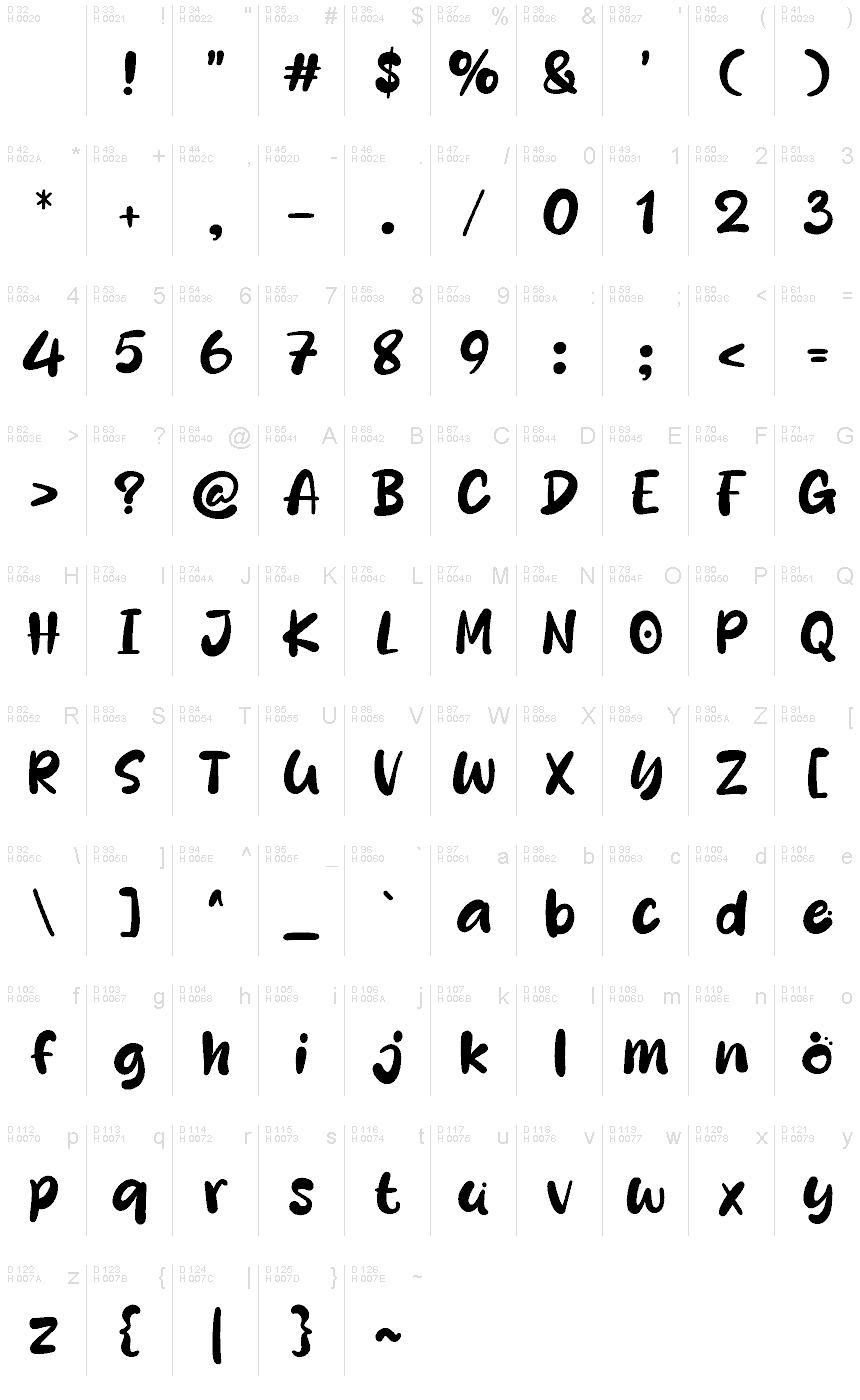
Ponari
Ponari font by Khurasan is a free display font with exceedingly smooth, rounded, and modern shapes. It combines cartoonish letter designs that form a friendly and approachable tone. The typeface looks casual, informal, happy and positive in all situations where it’s used. It counts with numerous keywords like playful as it is an informal-looking typeface at its core.
All of these characteristics combined make Ponari perfect for comic covers or strips as well as any project that would benefit from funny looks like meme creations or messages for friends. Titles, headings, logo/branding design, children-related writing or podcast thumbnails would also be great potential use cases for this wonderful lettering style.